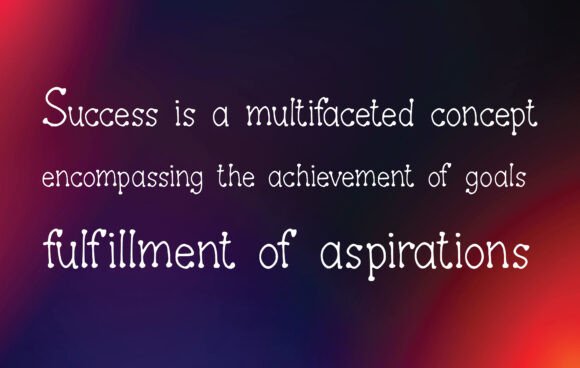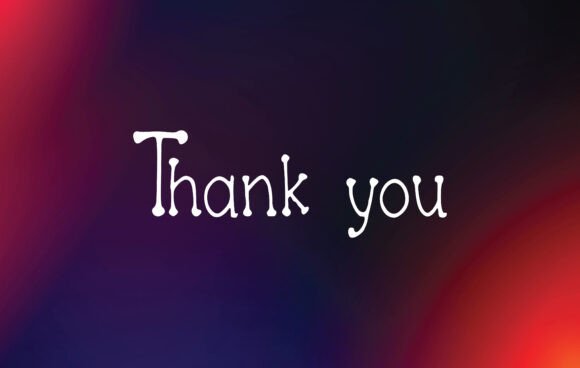
Catherine Font: Elevate Your Creative Projects with Elegance and Sophistication
Are you a designer, crafty enthusiast, or simply someone who appreciates beautiful typography? Look no further than the stunning Catherine Font. This lovely and beautiful handwritten font has the potential to take your creative ideas to the highest level, making it the perfect choice for a wide range of projects.
The Beauty of Catherine Font
Catherine Font is a true gem in the world of typography. Its elegant and fluid strokes exude a sense of sophistication and refinement, making it ideal for creating eye-catching logos, branding materials, and quotes. The font’s unique character and charm are sure to capture the attention of your audience and leave a lasting impression.
Why Choose Catherine Font?
So, what sets Catherine Font apart from other fonts? Here are just a few reasons why it’s the best choice for your creative projects:
• Elegant and Sophisticated: Catherine Font’s refined and luxurious feel makes it perfect for high-end branding, logos, and marketing materials.
• Easy to Read: The font’s clear and legible design ensures that your message is conveyed effectively, making it perfect for quotes, posters, and other visual communications.
• Unique and Memorable: Catherine Font’s distinctive character and charm will help your brand or project stand out from the crowd and leave a lasting impression.
Catherine Font is a dream come true for designers and crafty enthusiasts. Whether you’re creating:
• Logos and Branding: Use Catherine Font to create a stunning logo that reflects your brand’s personality and values.
• Social Media Graphics: Add a touch of elegance to your social media posts and stories with this beautiful font.
• Print Materials: Use Catherine Font to create gorgeous business cards, brochures, and other print materials that showcase your brand’s sophistication.
• DIY Projects: Add a personal touch to your craft projects, such as handmade cards, invitations, and scrapbooking pages.
Tips for Using Catherine Font
To get the most out of Catherine Font, here are a few tips to keep in mind:
• Pair with Other Fonts: Experiment with pairing Catherine Font with other fonts to create a unique and visually appealing combination.
• Adjust Font Size: Play with different font sizes to create visual hierarchy and emphasize important information.
• Use Colors Wisely: Choose colors that complement the font and enhance its elegance and sophistication.